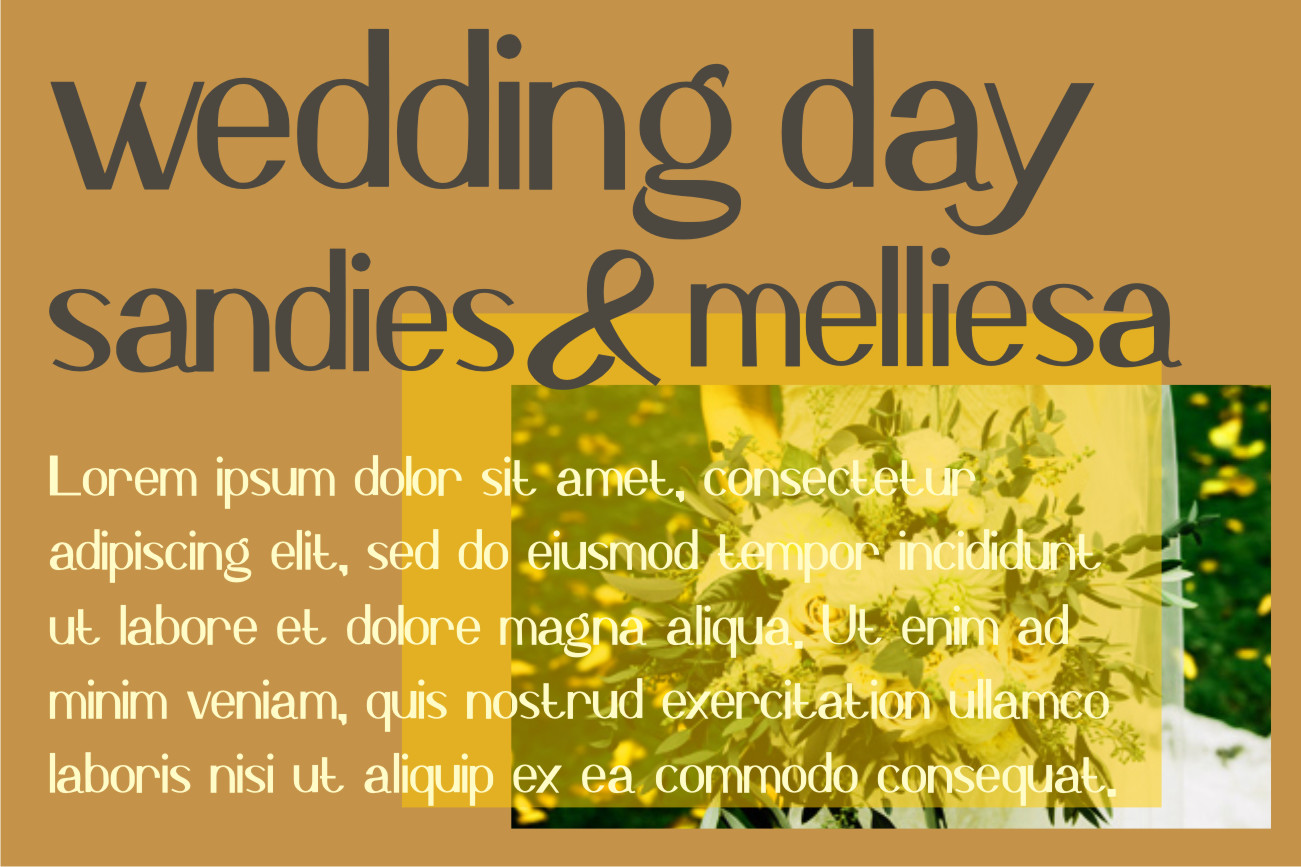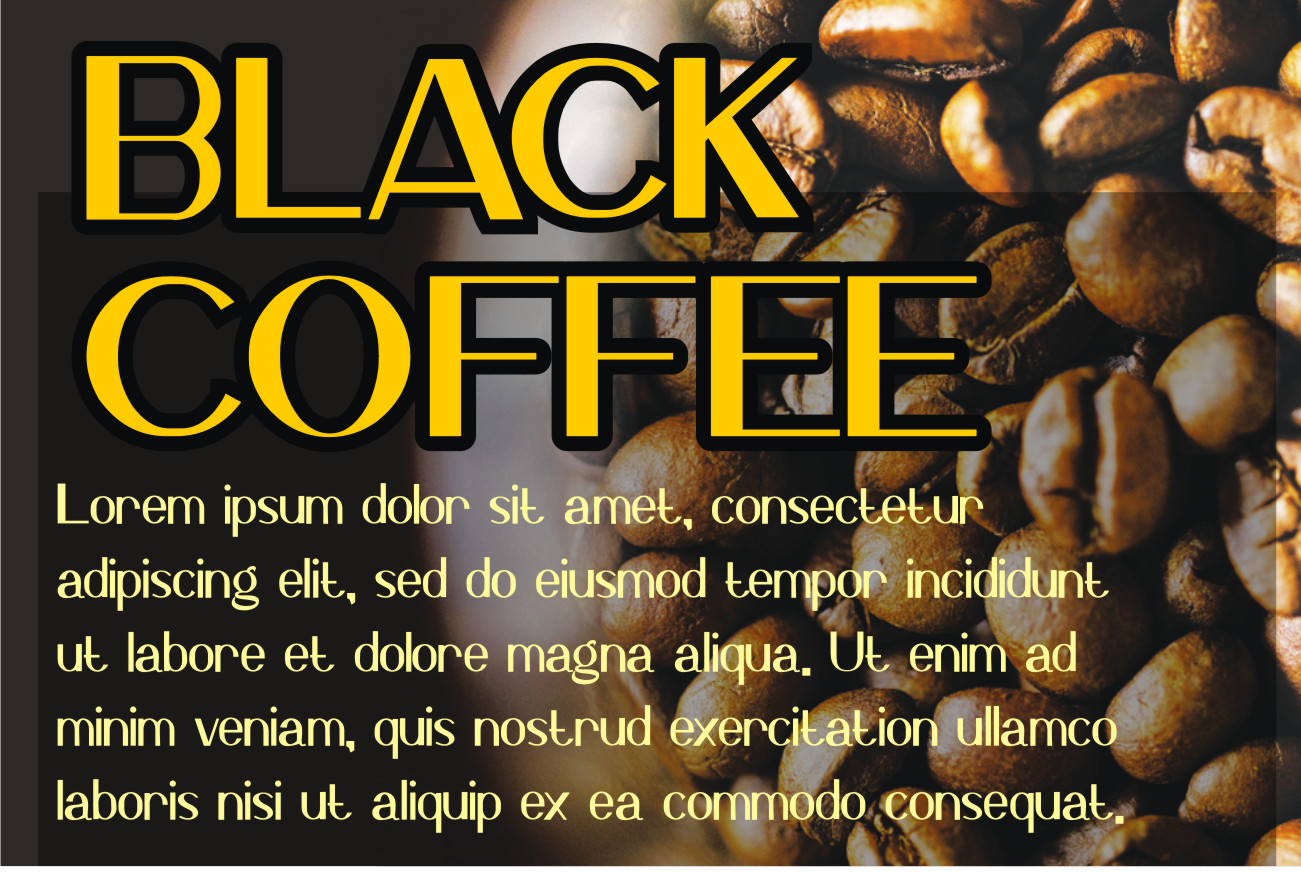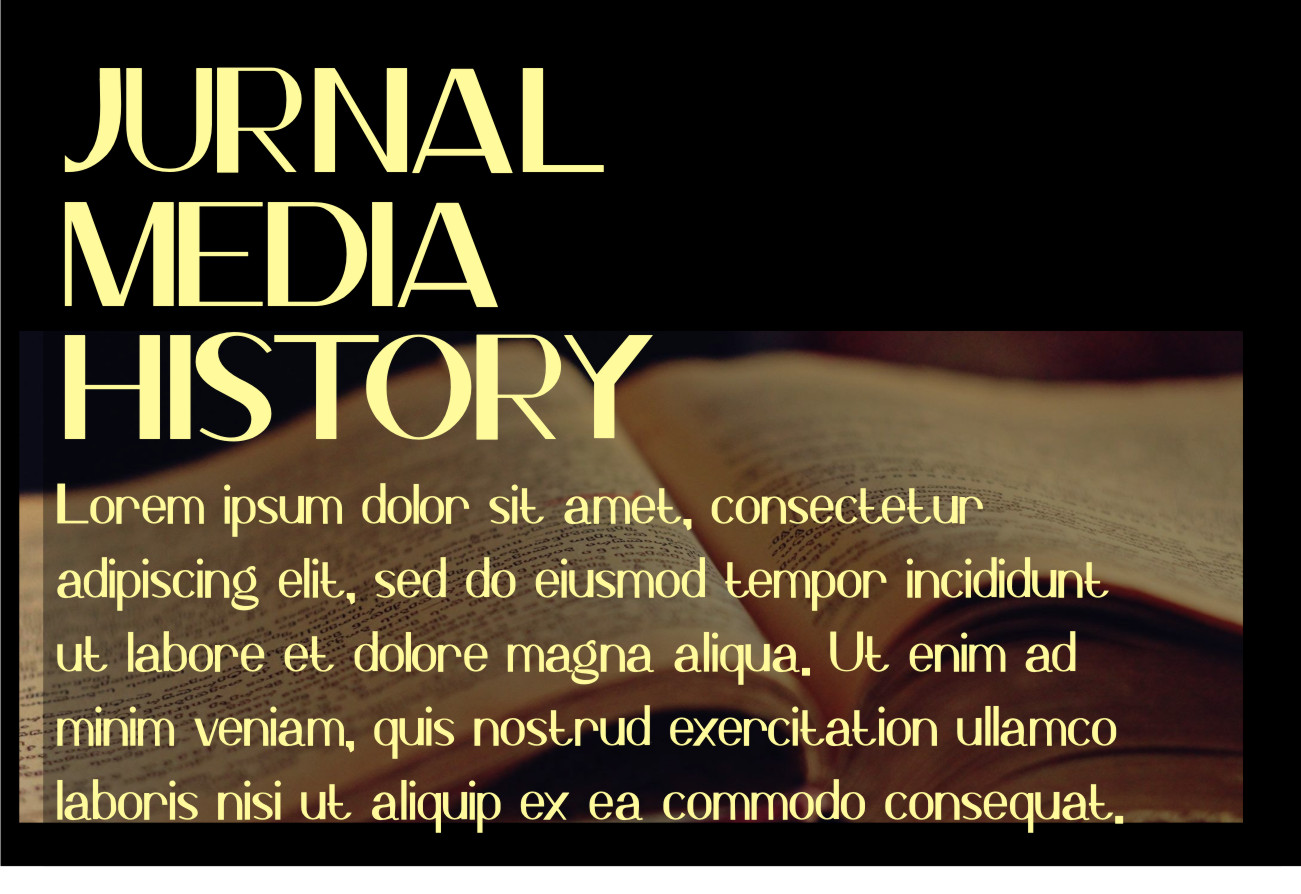
Saprone Font
Saprone Sans Serif Font
This is an elegant, assertive and adaptable sans serif font. This font is ideal for writing web designs, business cards, or pretty much anything else that requires a unique touch.